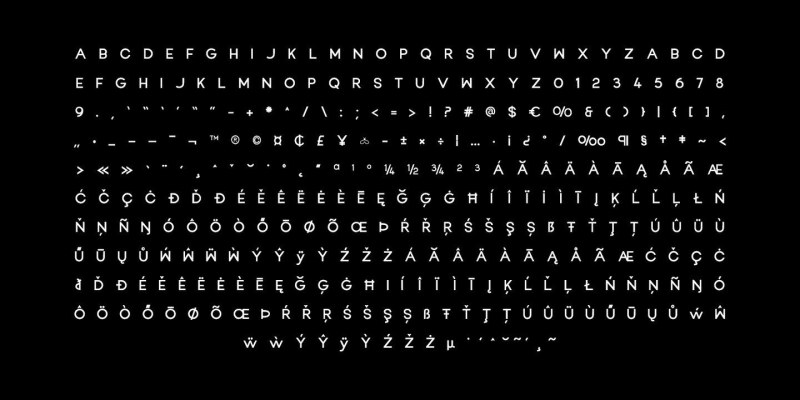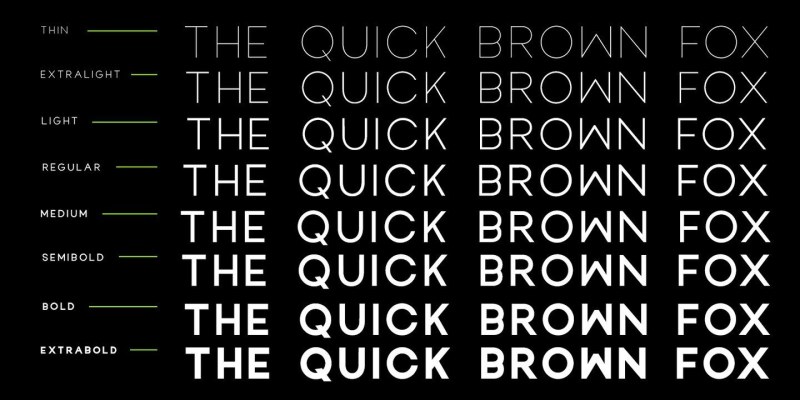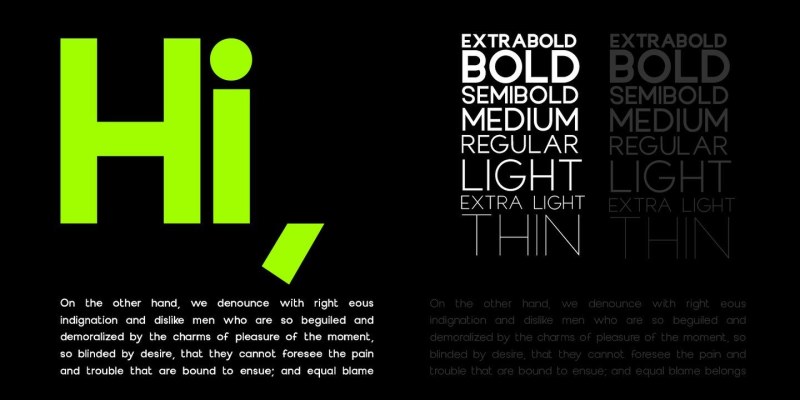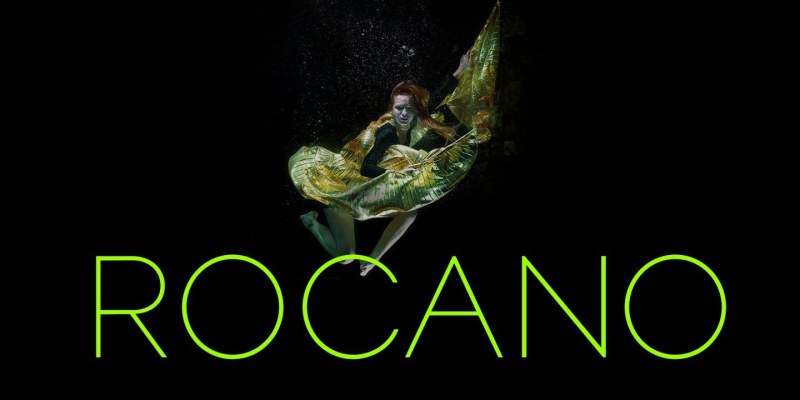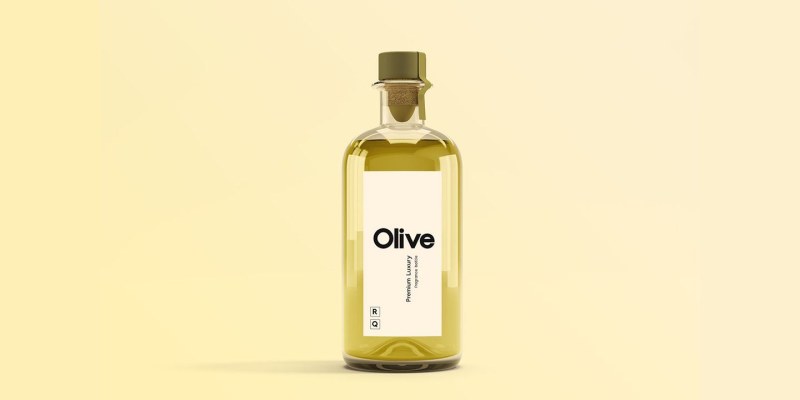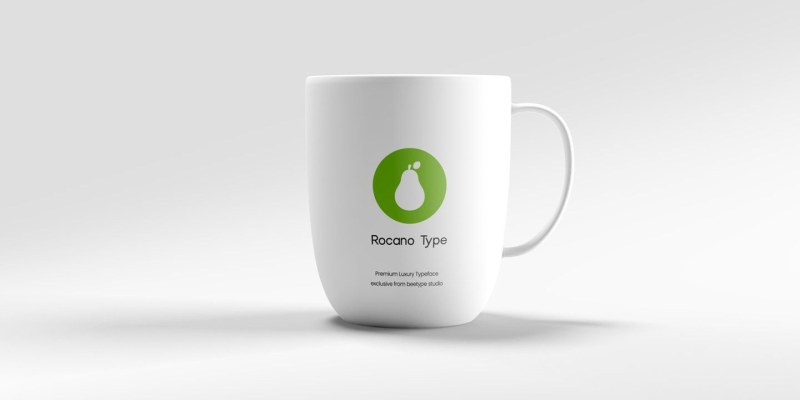
Rocano Font
Rocano is a unique and modern sans serif font, perfect for headlines, big text, branding, logotypes & display usage. The typeface will add a neat and sleek accent to eac…
Rocano is a unique and modern sans serif font, perfect for headlines, big text, branding, logotypes & display usage. The typeface will add a neat and sleek accent to each of your beautiful crafty ideas! It has dependable and uncompromising style, with the controlled letter forms and modern touches, experienced through sophisticated touches and controlled letter forms.
There’s a good mix of strong lines and smooth curves. Each font in the family can be used independent, and each is lively and authoritative in its own right. The various weights allow you to experiment with a wide range of applications, while the outlined typefaces offer any project a truly modern vibe.
Where Rocano Font works best
Rocano Font stays legible at small sizes, which makes it a strong choice for navigation, buttons and dashboards in web design and app interfaces.
Clean sans serifs like Rocano Font are the default language of SaaS, fintech and product branding.